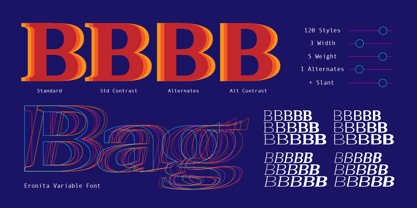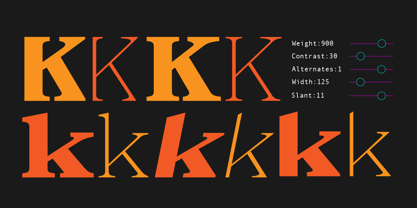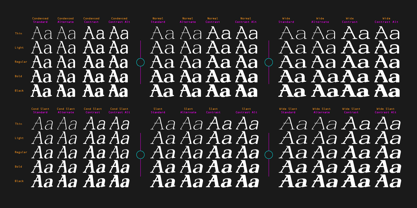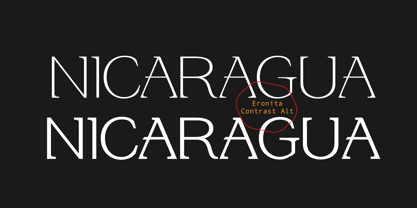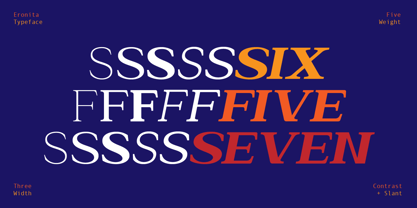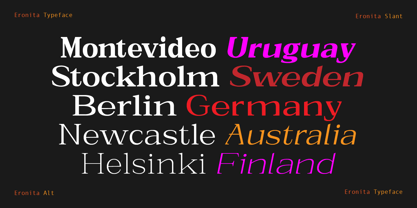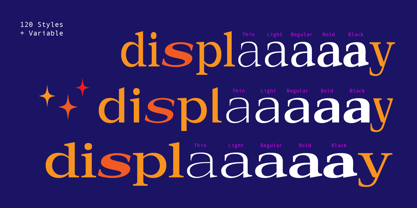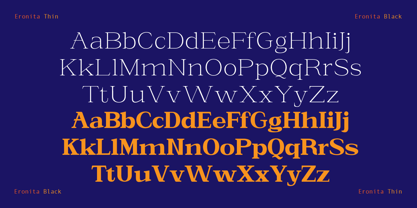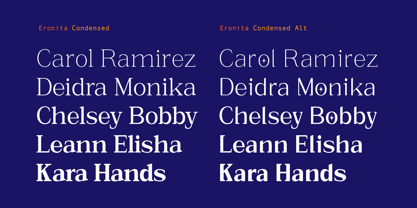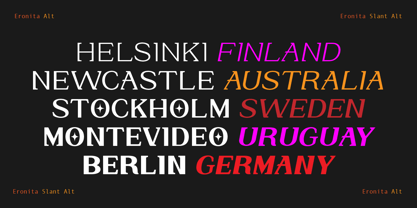
Eronita
The Eronita Font Family was designed by Rizki Agam Fonna and published by RCKY Studio. Eronita contains 121 styles and family package options.
Introducing Eronita – Modern Serif Variable Typeface
Eronita is a modern serif typeface that’s elegant, versatile, and captivating designed to bring sophistication and personality to any design project. Built as a variable font, Eronita gives you complete creative freedom through dynamic customization.
Full Variable Features:
* Weight: from Thin to Black, fine-tune the thickness to your liking.
* Contrast: adjust thick/thin stroke balance for a classic or contemporary feel.
* Alternates: access distinctive alternates like the starred ‘o’. and more.
* Width: explore flexible widths for bold headlines or clean body text.
* Slant: tilt it precisely for modern editorial vibes.